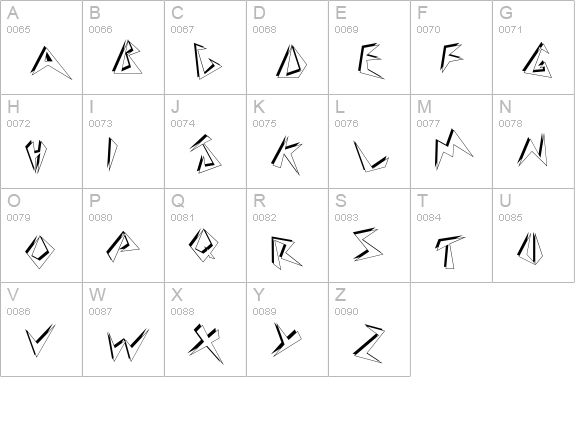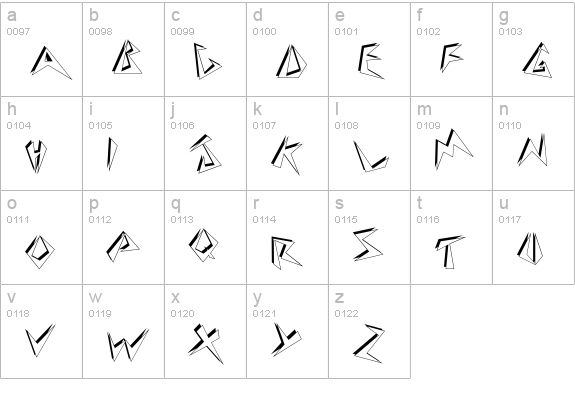
BeeboppFont Font Details
Introducing BeeboppFont, a modern and stylish font that is perfect for adding a touch of whimsy to your design projects. This fun and playful typeface features unique characters and a bouncy feel that will make your text stand out. BeeboppFont is not only eye-catching, but also easy to read, making it versatile for a variety of uses. The best part? BeeboppFont is completely free to download at FontsMarket.com! Whether you're designing a poster, creating a logo, or crafting a social media graphic, BeeboppFont will add a delightful touch to your work. Don't miss out on this fantastic font - download BeeboppFont today and let your creativity soar!